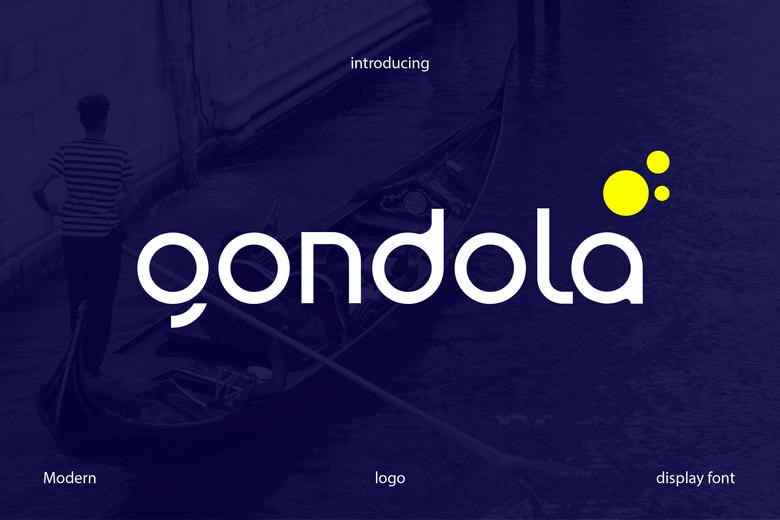
Gondola Font
Gondola is a contemporary sans serif logo font that can be used in your branding projects. Inspired by the lines of circles with slightly rounded. Gondola font is both accurate and innovative, which is why it suits tech companies, startups, or futuristic projects.
Gondola Sans Serif Font